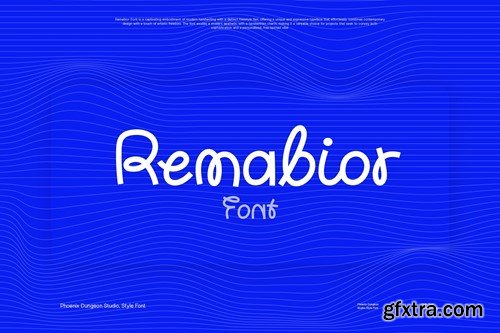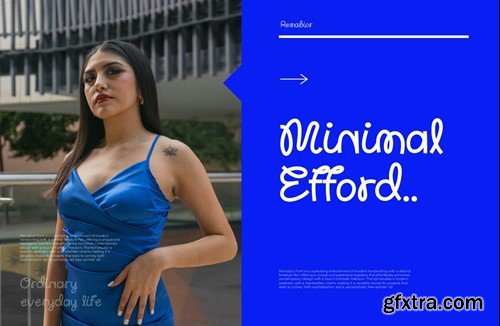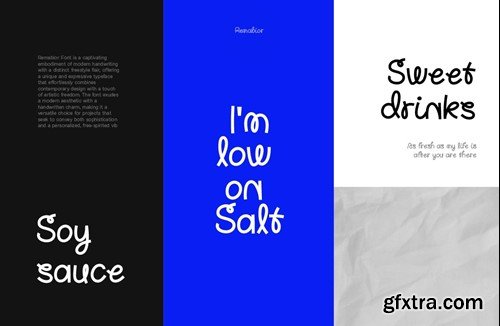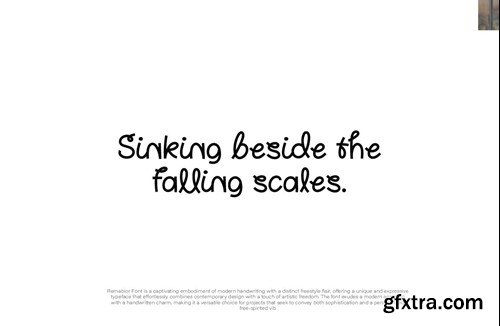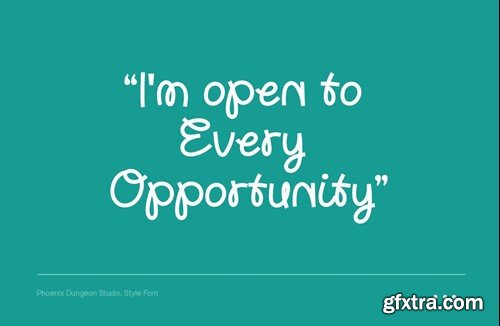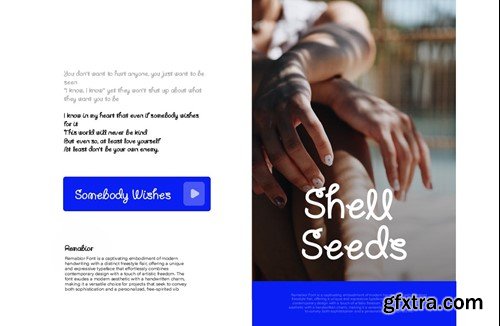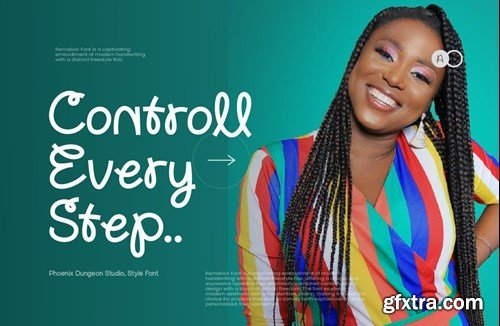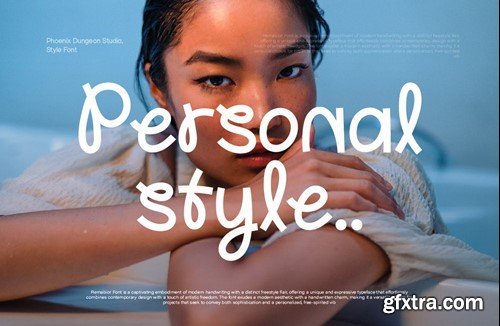
Remabior Font
Remabior Font is a captivating embodiment of modern handwriting with a distinct freestyle flair, offering a unique and expressive typeface that effortlessly combines contemporary design with a touch of artistic freedom. The font exudes a modern aesthetic with a handwritten charm, making it a versatile choice for projects that seek to convey both sophistication and a personalized, free-spirited vibe. What’s in the package : Thank you